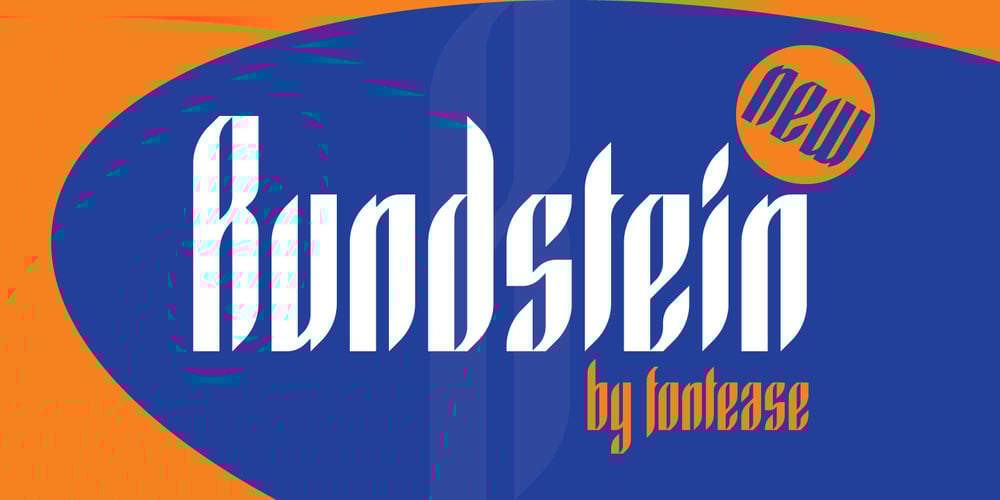
Rundstein Font Family was designed by Kolyu Kolev and published by Fontease. Rundstein contains 3 styles and family package options. Rundstein is the round twin of Waffelstein.Rundstein includes extended Latin language support, but also Cyrillic and Greek.Designed with opentype features like glyph alternates and ligatures, Rundstein is perfectly suited for graphic design and any display use.It could easily work for army, bands, breweries, cinema, gamers, metalheads, militaries, movies, posters, pubs, quotes, t-shirts and many more.